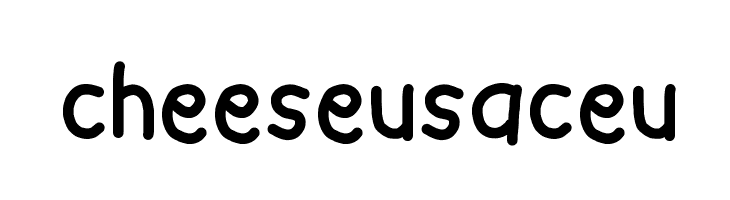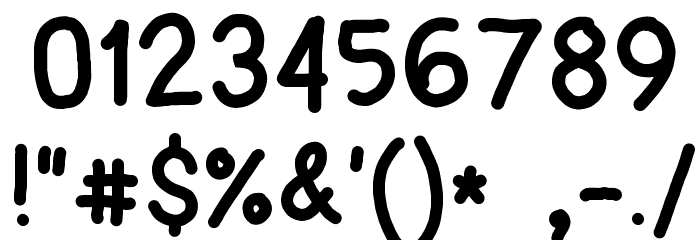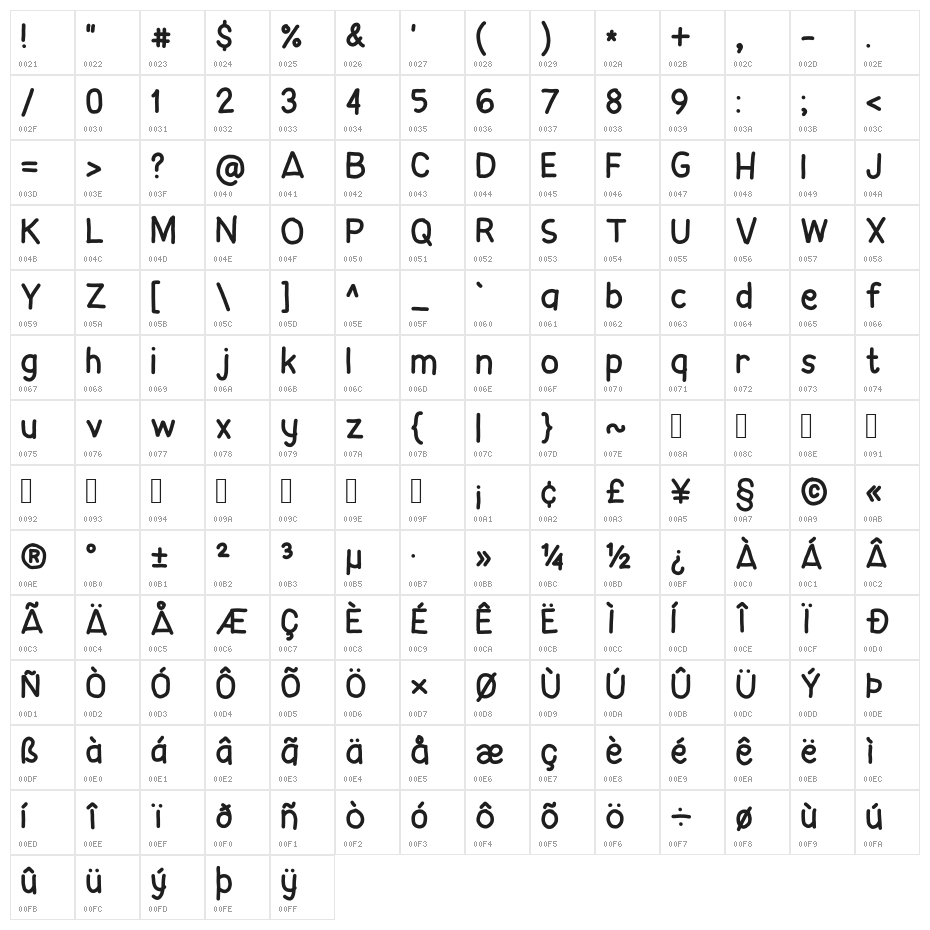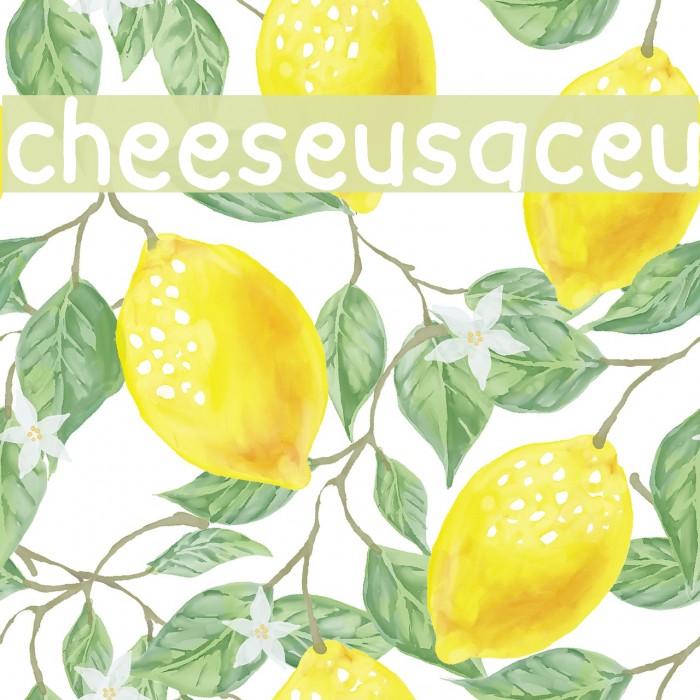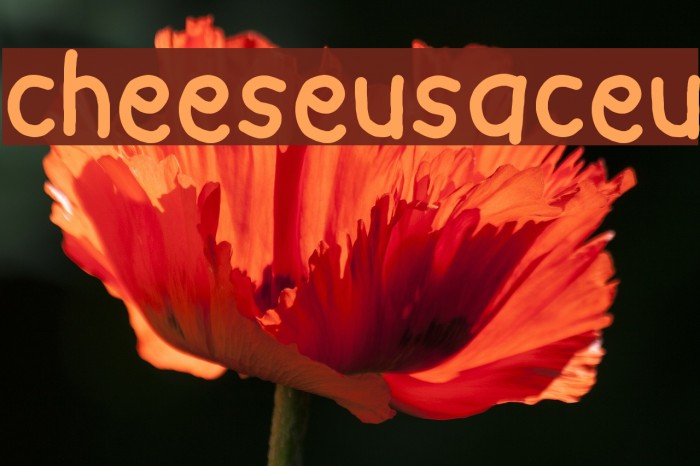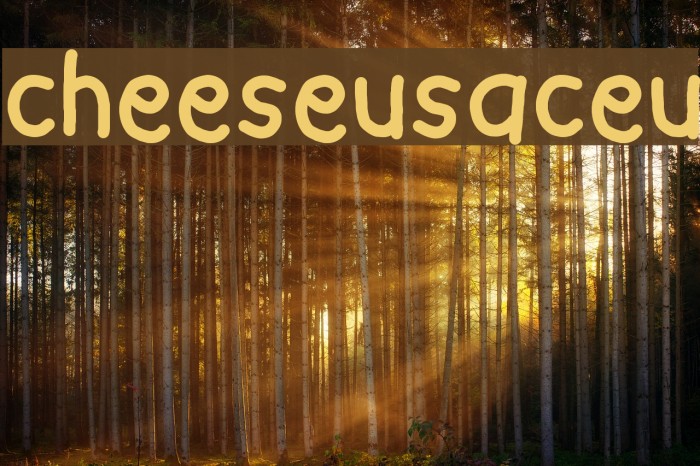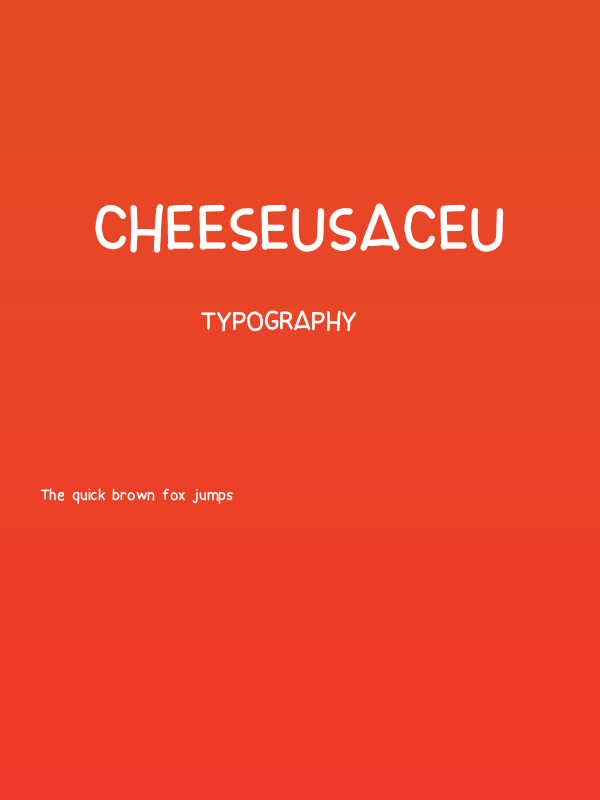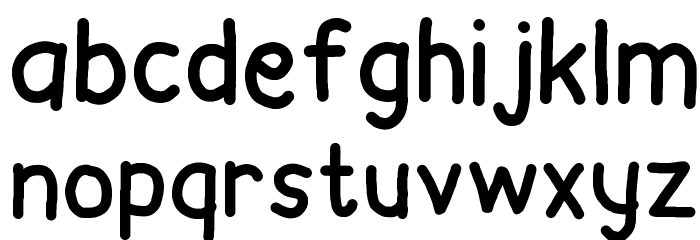
cheeseusaceu Font
cheeseusaceu Description
This font features a playful and informal style, characterized by its rounded and slightly irregular letterforms. The strokes are consistent in thickness, giving it a uniform appearance while maintaining a hand-drawn feel. The uppercase and lowercase letters are well-proportioned, with a slight slant that adds to its casual charm. The numerals are clear and distinct, matching the overall style of the alphabet. Special characters are included, maintaining the same whimsical aesthetic. This font is versatile, suitable for projects that require a friendly and approachable look.
| Use Case | Headlines, Informal text, Branding |
| Proposed Projects | Ideal for children's books, casual branding, greeting cards, and playful social media graphics. |